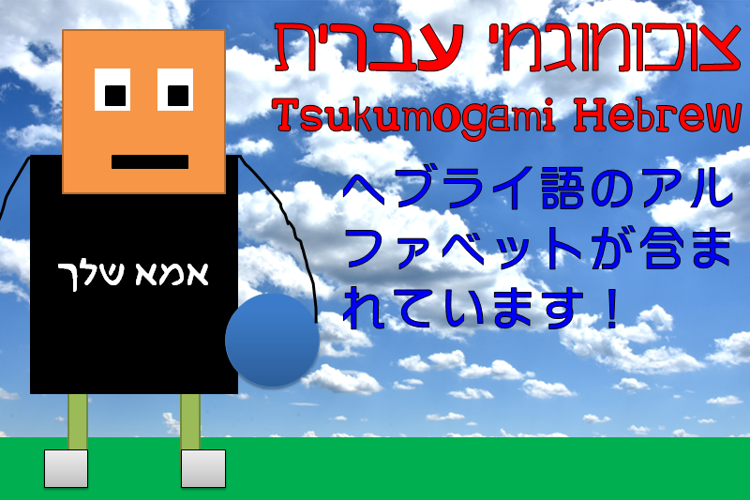
Tsukumogami Hebrew Font
About Tsukumogami Hebrew Font
Tsukumogami Hebrew is a Hebrew companion of my recent font, Tsukumogami. The Hebrew alphabets feature a mixed-up appearance, as with the Latin letters. It includes only the basic Hebrew letters, and there are no diacritics.